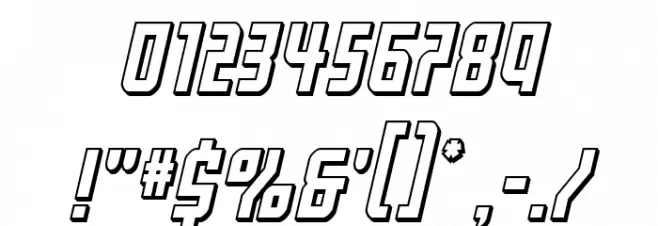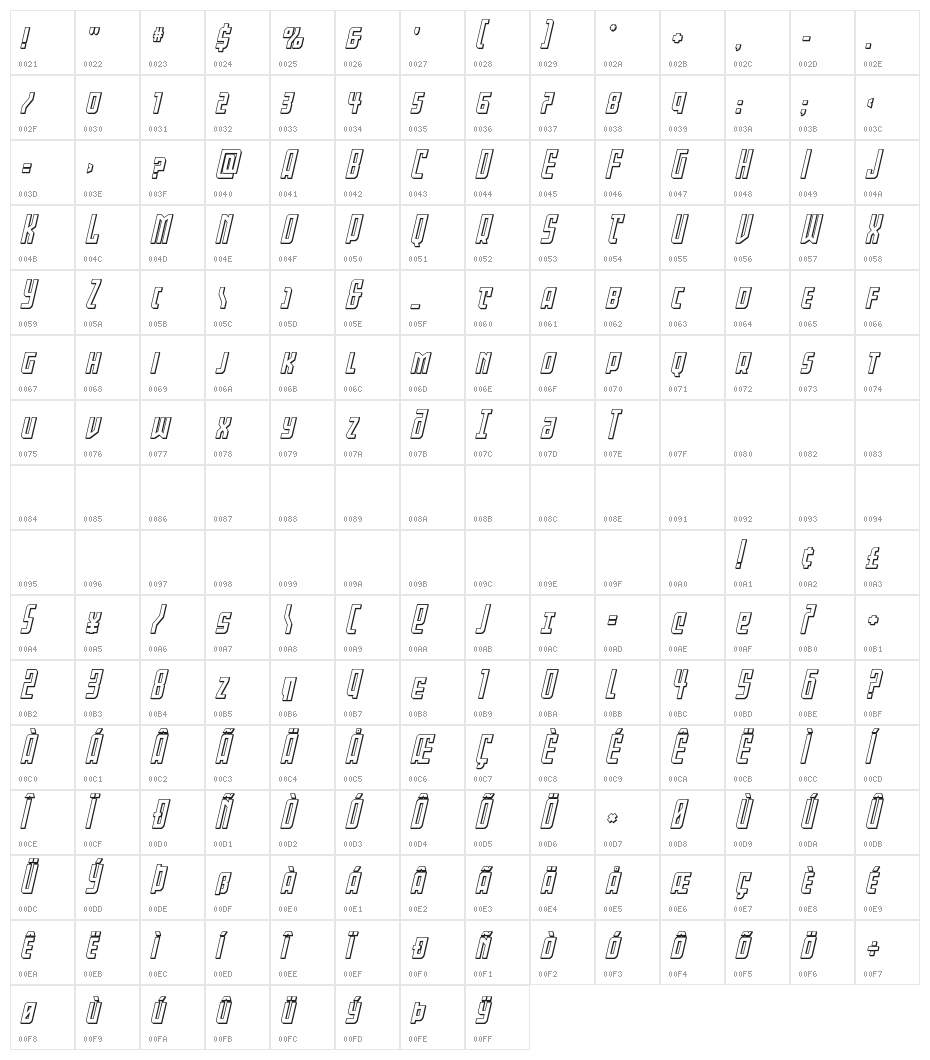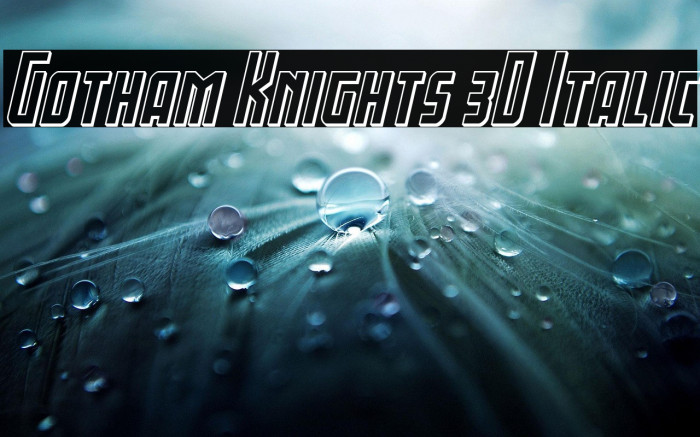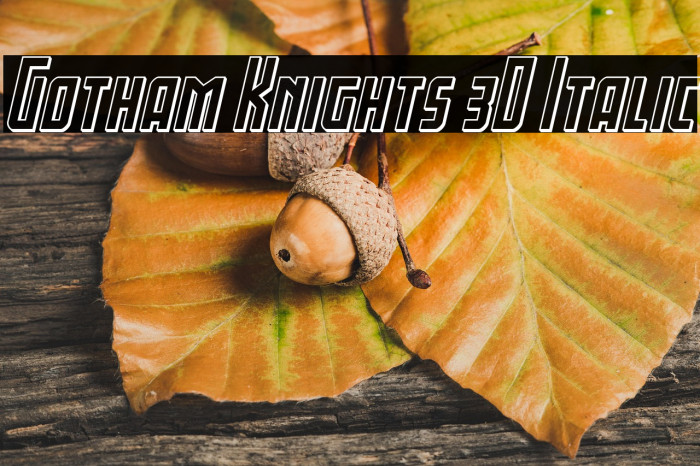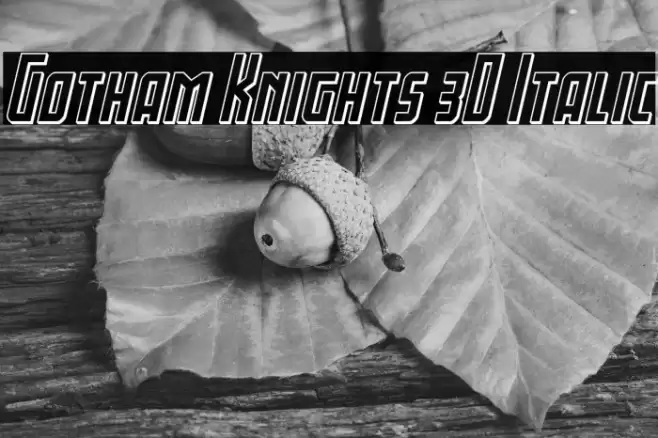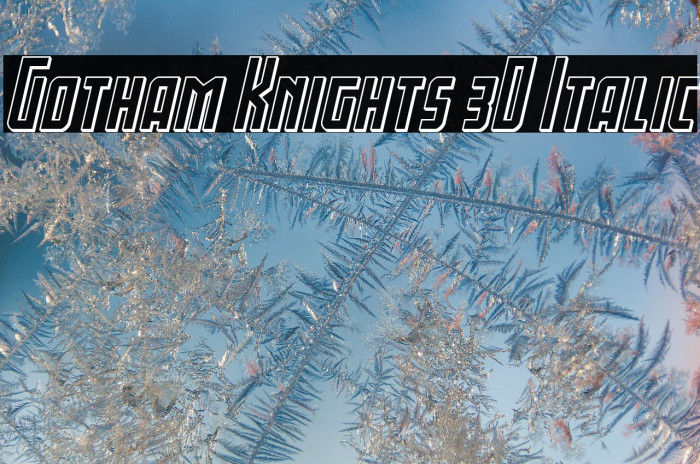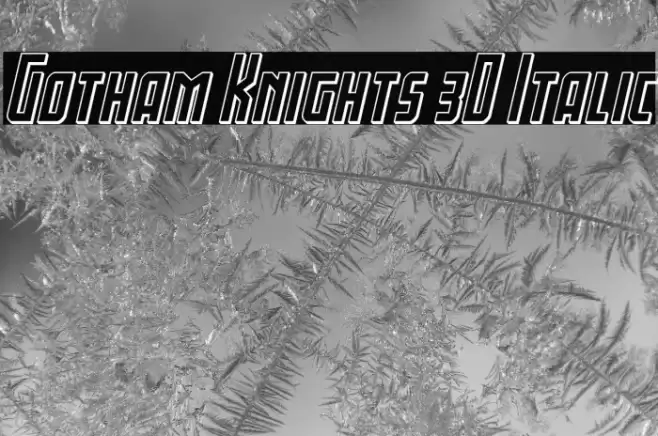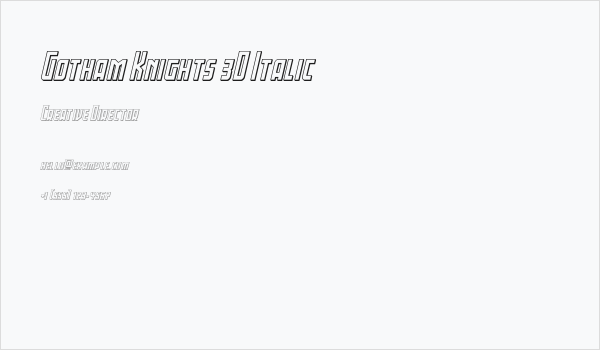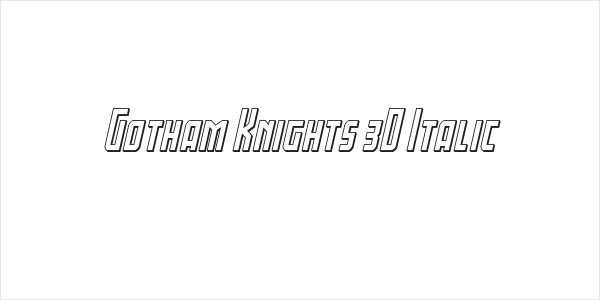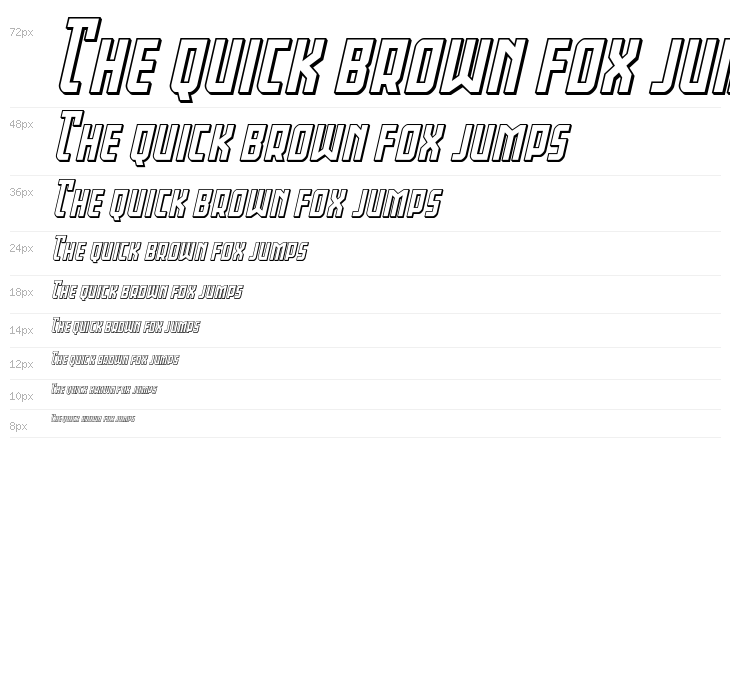
Gotham Knights 3D Italic Font
Gotham Knights 3D Italic Description
This font features a bold, three-dimensional appearance with a distinct italic slant, giving it a dynamic and modern look. The characters are outlined, creating a sense of depth and movement. The uppercase letters are angular and geometric, while the lowercase letters maintain a consistent style, enhancing readability. Numbers and special characters are designed to match the bold and striking aesthetic, making them stand out. This font is ideal for projects that require a strong visual impact, such as branding, posters, and video game titles.
| Proposed Projects | Ideal for video game titles, branding, posters, and any project needing a strong visual impact. |